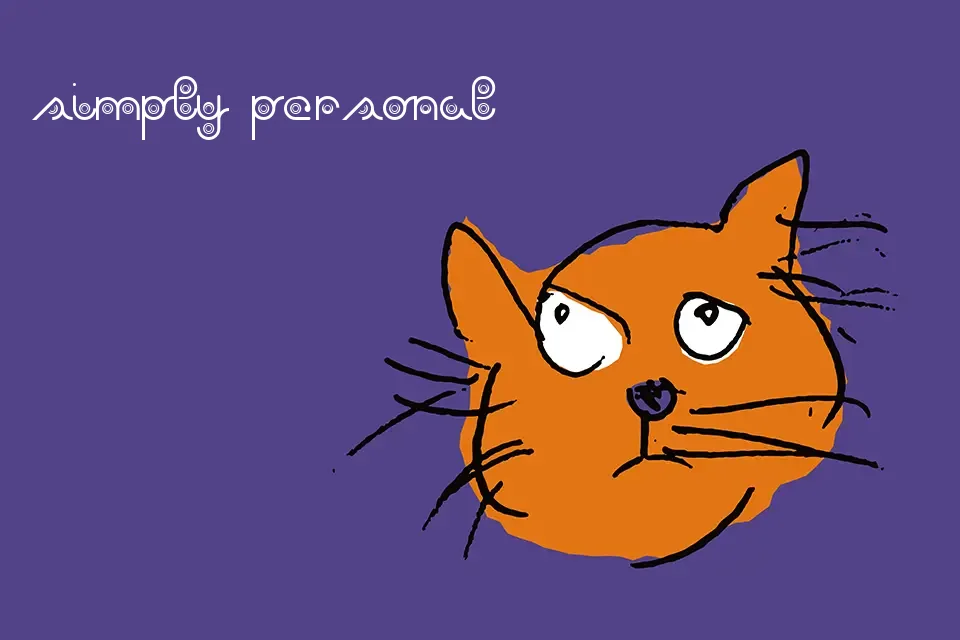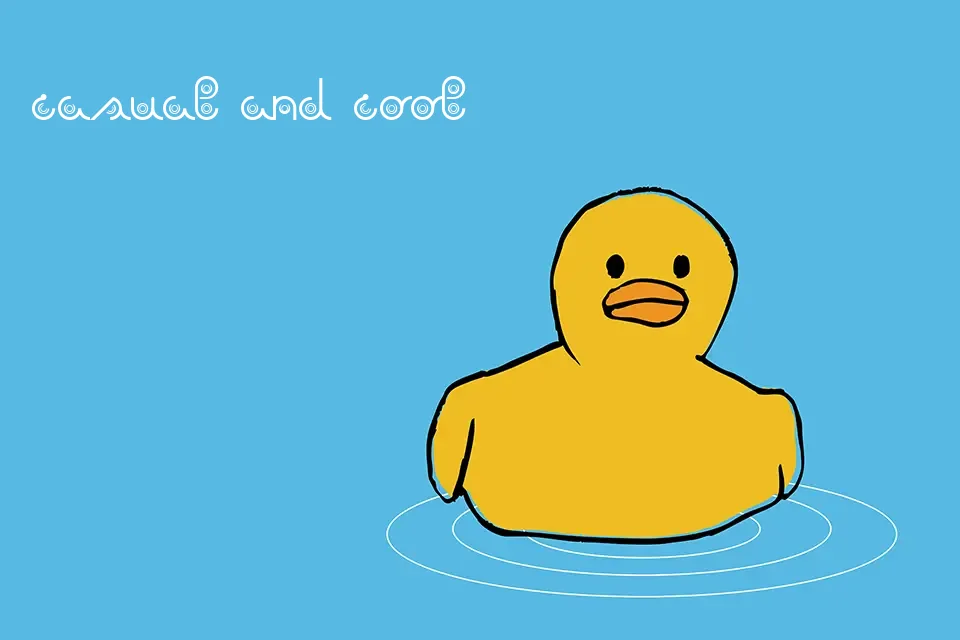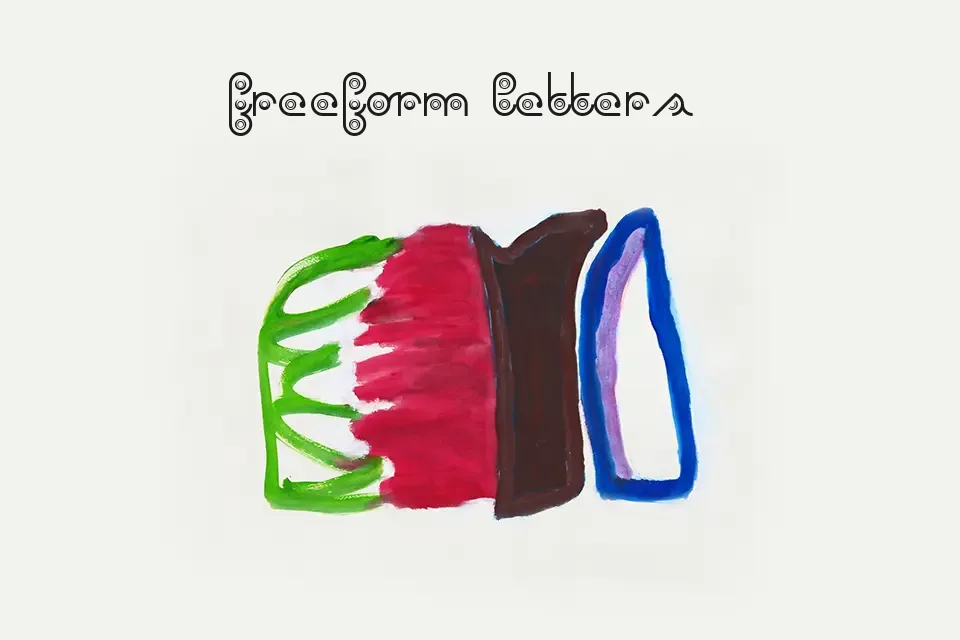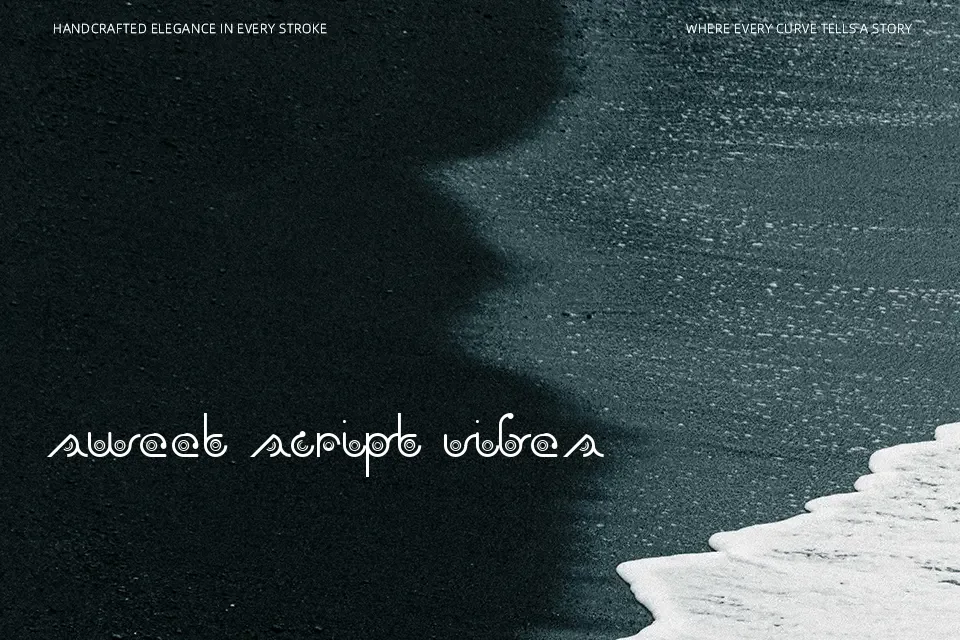
Again Font
Again draws its identity from full, rounded curves — every letterform feels soft and deliberately unhurried, with low stroke contrast and tight internal spacing that gives the type a cohesive, bubbly rhythm. The author’s own note, “Toute en rondeur” (all roundness), sums it up honestly. It reads as casual and approachable, sitting somewhere between a curly display script and a decorative headline face. Works well at large sizes on invitations, craft packaging, or kids’ content where a friendly, hand-touched tone is the point. At small sizes or in dense text blocks, legibility breaks down quickly — the curls that charm at display scale become noise in body copy. Designers who need warmth without formality will find it useful; those chasing clean precision should look elsewhere.
Best For:- greeting card and invitation headers
– kids’ brand or product packaging titles
– handmade or craft shop logo lockups
– social media quote graphics
Not Ideal For:- body text or long-form reading
– corporate or professional documents
– small-size UI labels or navigation
– multilingual layouts requiring extended character sets
Perfect for invitation, kids, and logo, with a creative and decorative style.